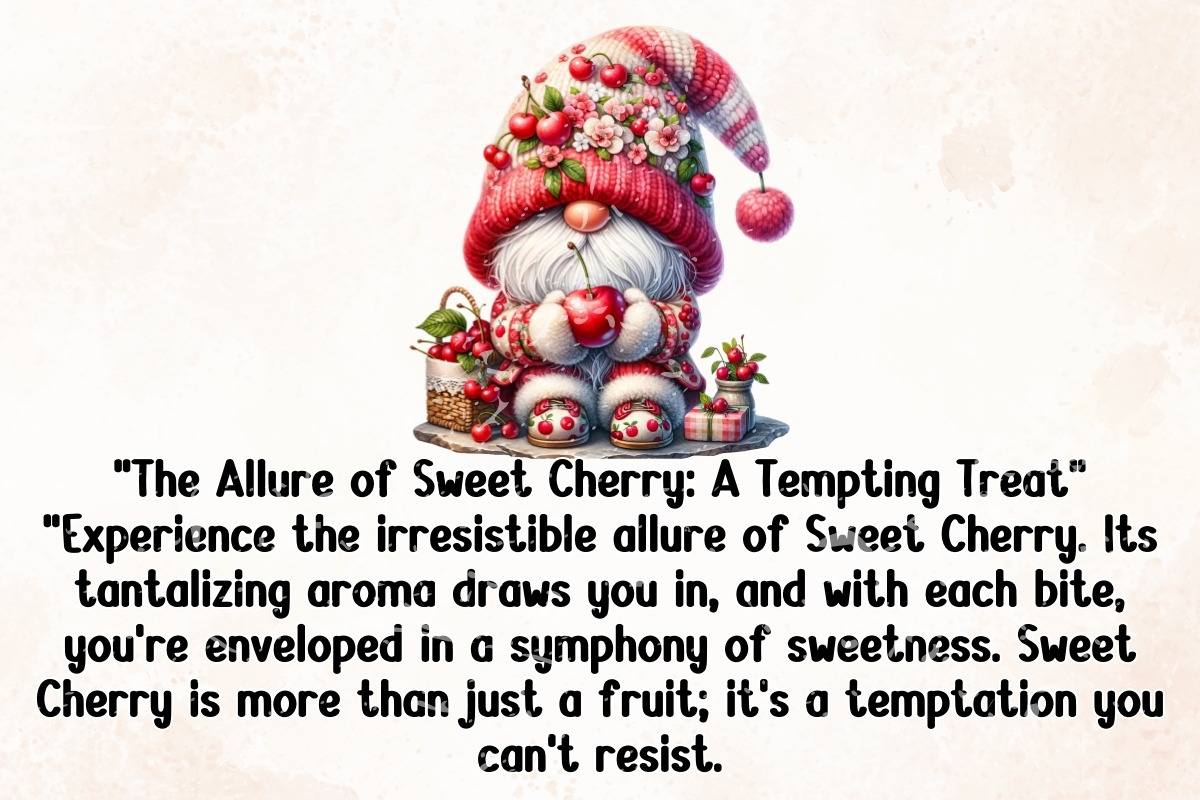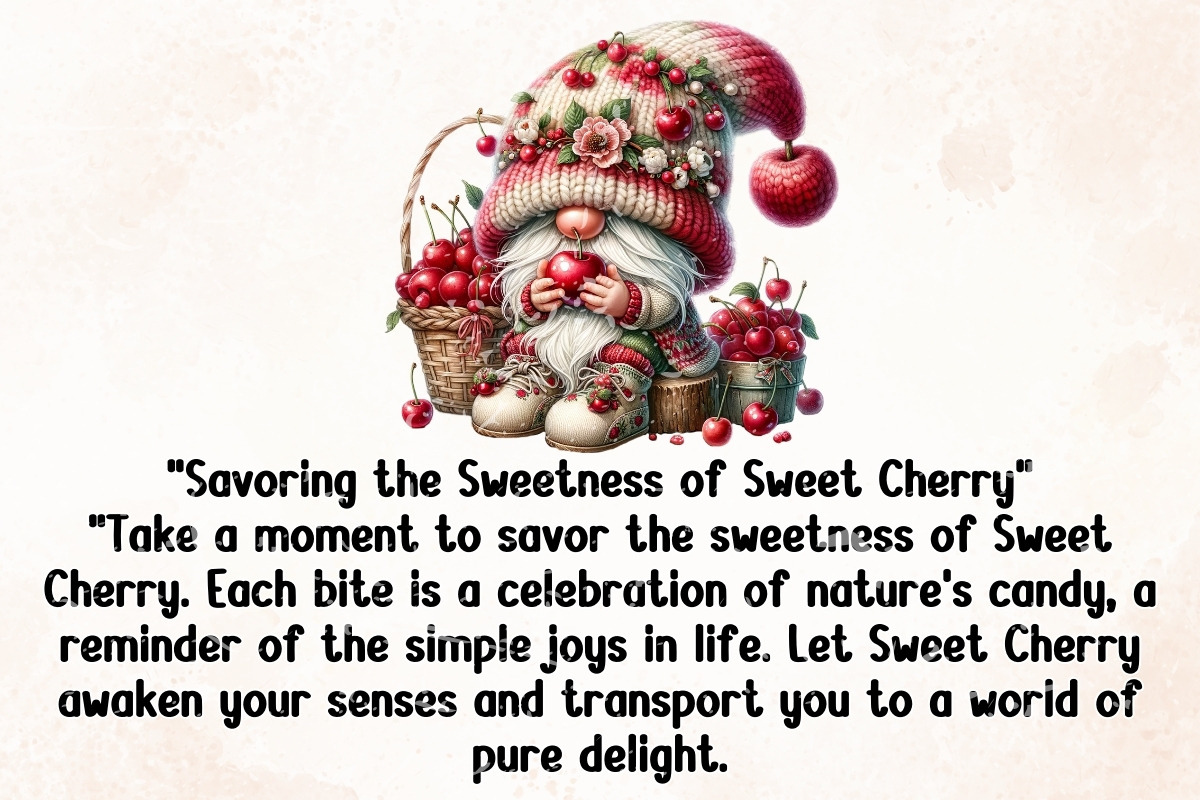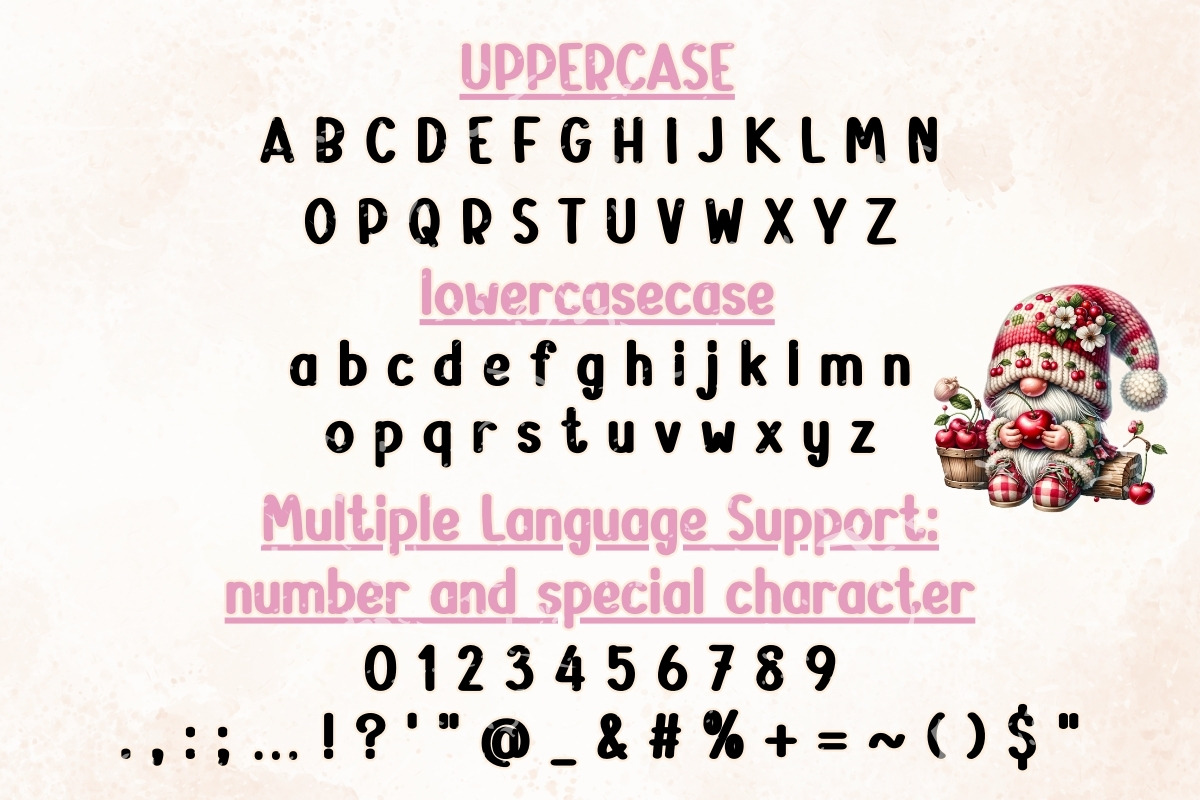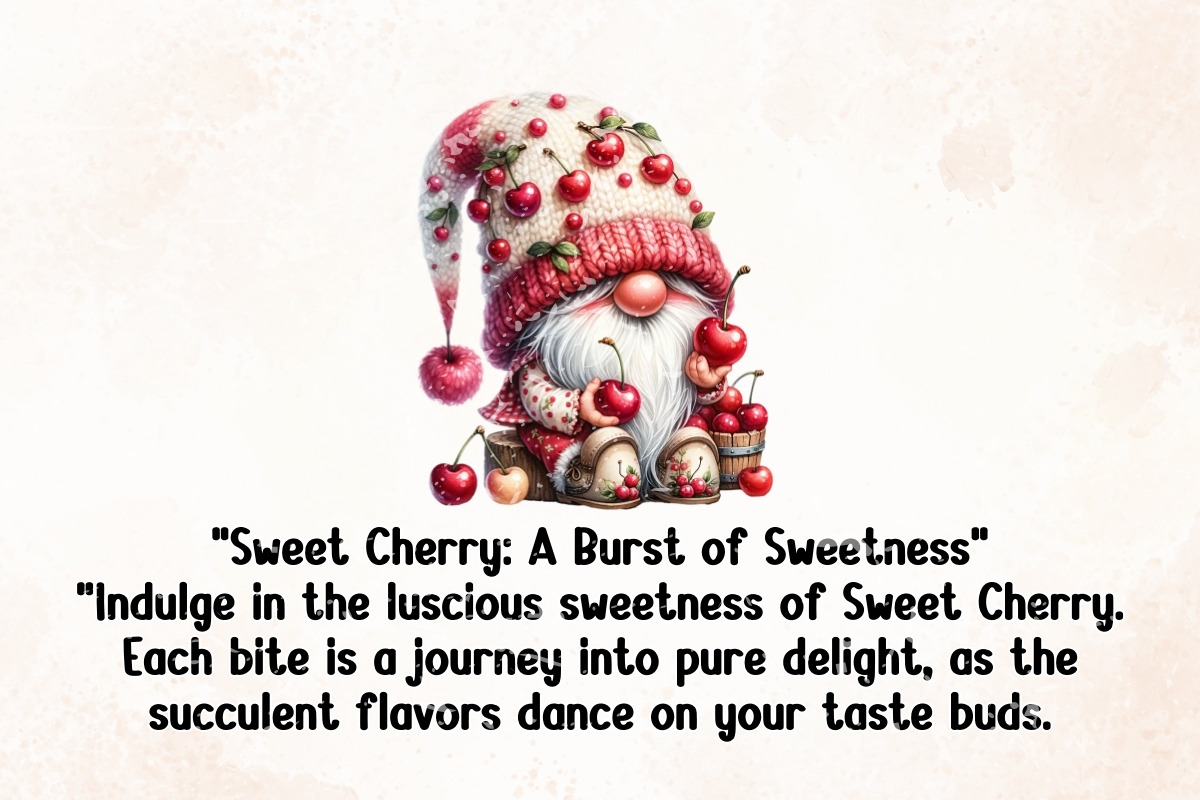
Sweet Cherry - Handwritten
"Introducing Sweet Cherry - a delightful handwritten font that exudes charm and whimsy. With its playful strokes and lovable curves, Sweet Cherry adds a touch of sweetness to any project. Whether you're creating invitations, branding materials, or social media graphics, this font is sure to capture hearts and leave a lasting impression. Let Sweet Cherry infuse your designs with a sense of warmth and joy!"